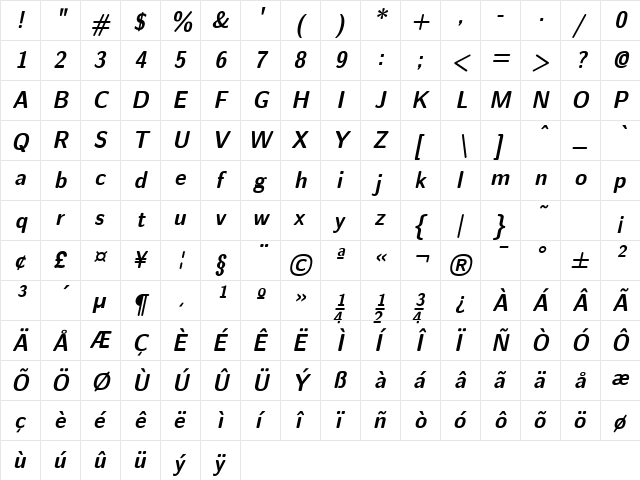
Nova Bold Oblique
Design Context for Nova Typeface
Nova is a composed and adaptable typeface that performs quietly and consistently across a wide range of design contexts. Its italic angle brings a sense of urgency and motion to the letterforms. Its bold stroke weight gives it real presence on the page.